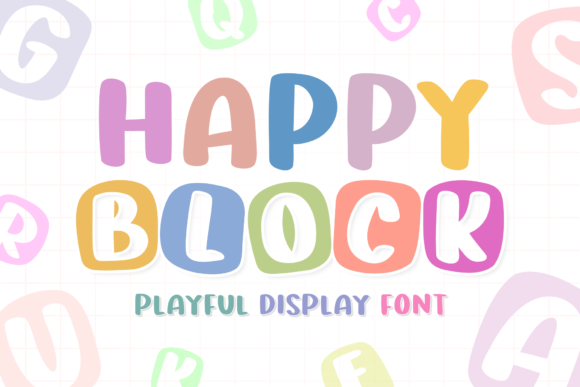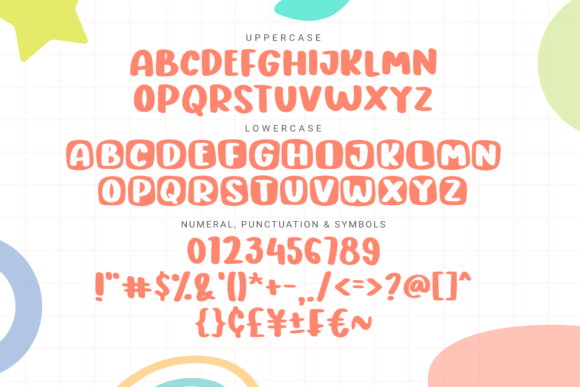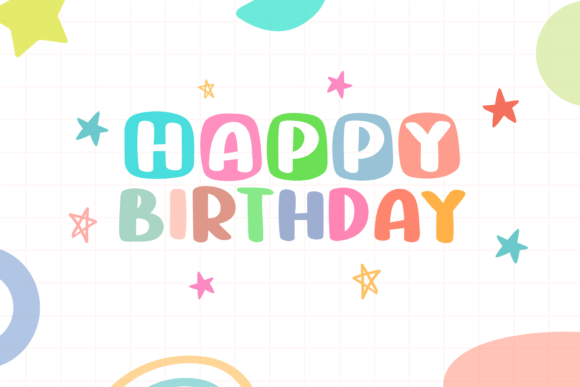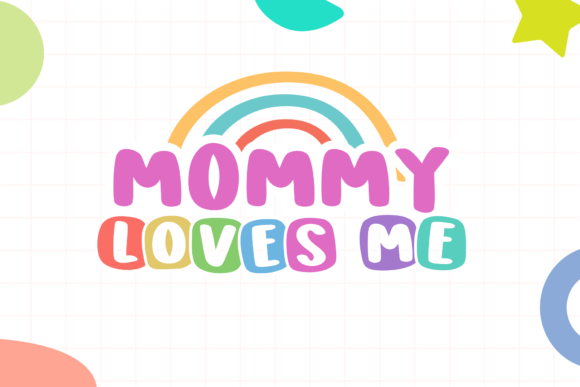
Happy Block Font
About the Happy Block Font
We are excited to introduce Happy Block Font, a must-have typeface for any serious designer. Happy Block is fresh and jolly display font. It is perfect for classrooms and crafty themes! This font will instantly make your creation more appealing than any others.
Happy Block’s playful, rounded forms make it ideal for headlines, short text blocks on posters, and children’s book titles. It works exceptionally well in branding for businesses targeting a young, fun-loving audience, such as toy stores, ice cream parlors, or educational apps. However, its low x-height and bold weight make it unsuitable for body text or extended reading. Avoid using it in UI elements or situations requiring high readability.
Pairing Happy Block with a clean sans-serif like Open Sans for body text creates a strong visual contrast and maintains readability. For a more playful feel, consider pairing it with a handwritten script font for a secondary message or tagline, while a geometric sans-serif would offer a modern counterpoint.
Happy Block projects a friendly, approachable, and undeniably cheerful personality. Its bold structure conveys energy and approachability, making it a solid choice where visual impact and a positive mood are priorities.
Happy Block Font Usage Examples
Happy Block Font Example